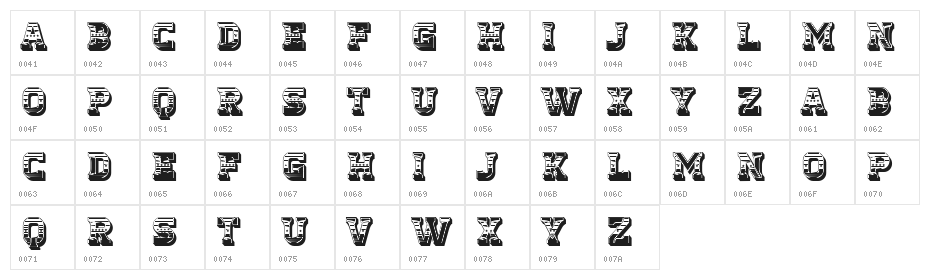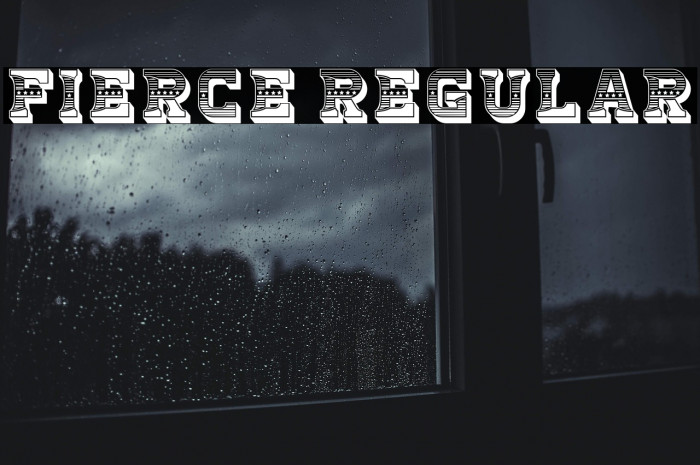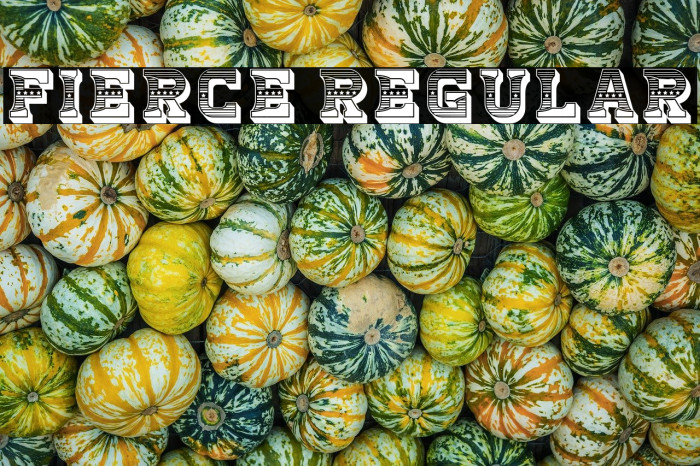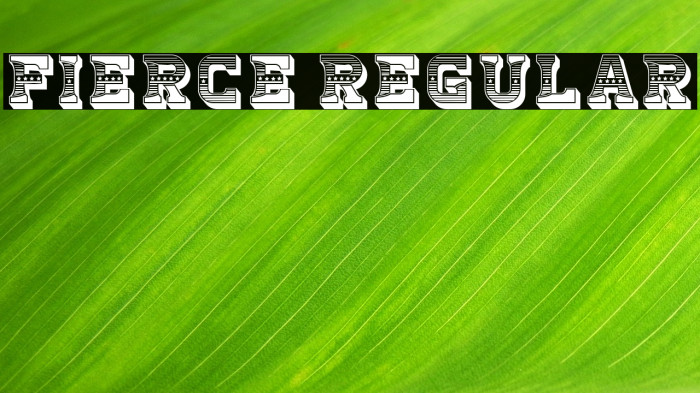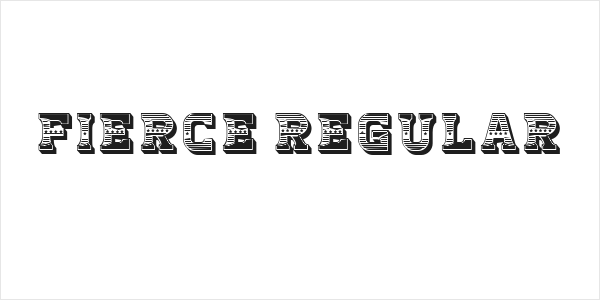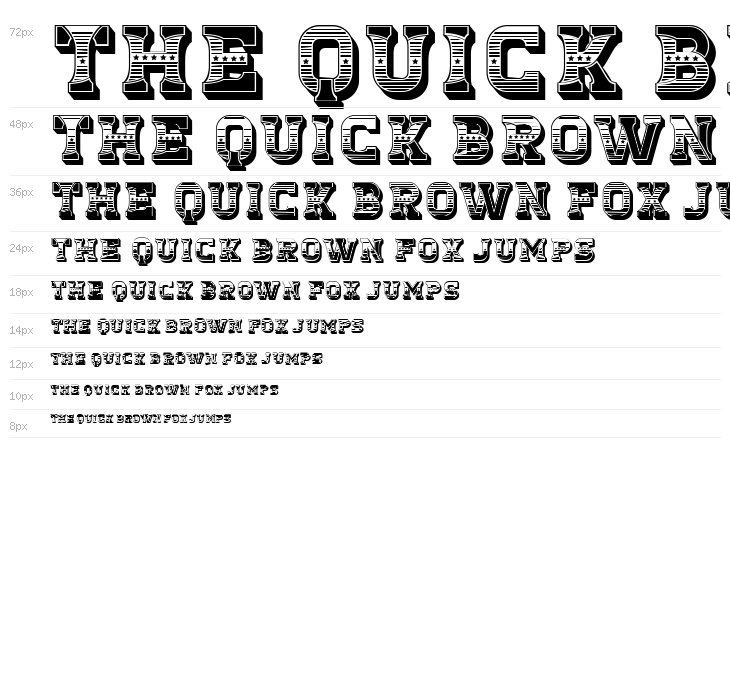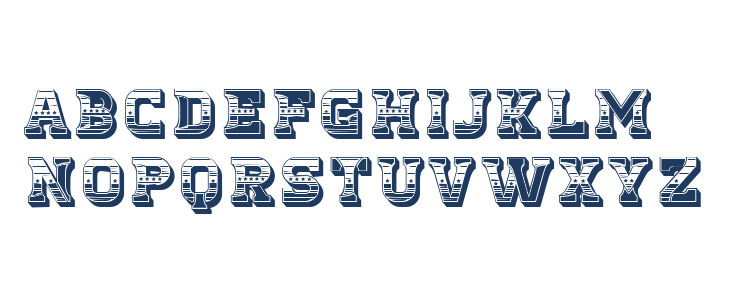
Fierce Regular Font
Fierce Regular Description
This font features a bold and striking design with a three-dimensional effect created by the use of horizontal lines and shadows. The uppercase letters are robust and have a strong presence, making them ideal for attention-grabbing headlines. The design incorporates a vintage flair with its decorative elements, reminiscent of old-school signage or posters. Each character is meticulously crafted to maintain consistency in style, ensuring a cohesive look across all letters. The font's unique aesthetic makes it suitable for projects that require a bold statement or a retro touch.
| Proposed Projects | Ideal for vintage posters, retro-themed branding, eye-catching headlines, and creative packaging designs. |